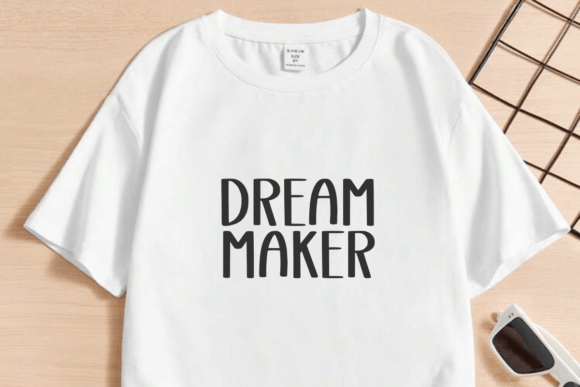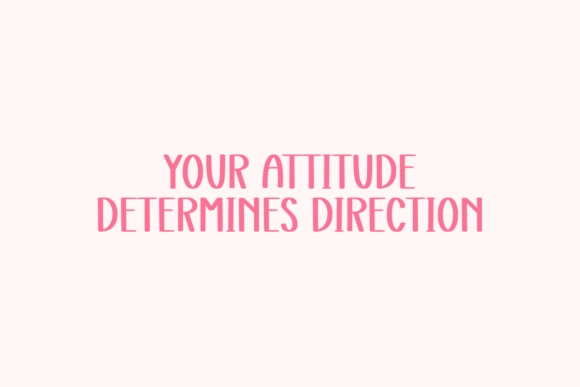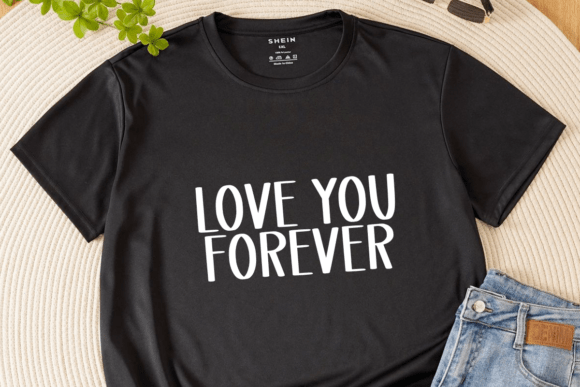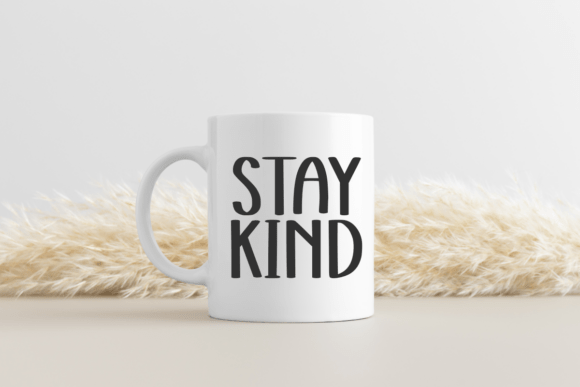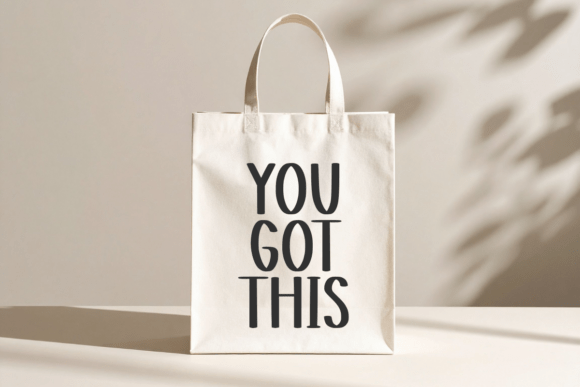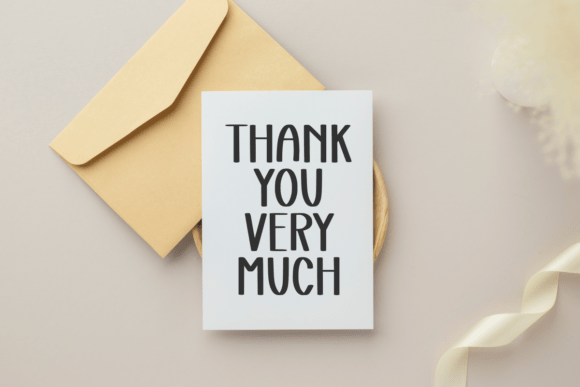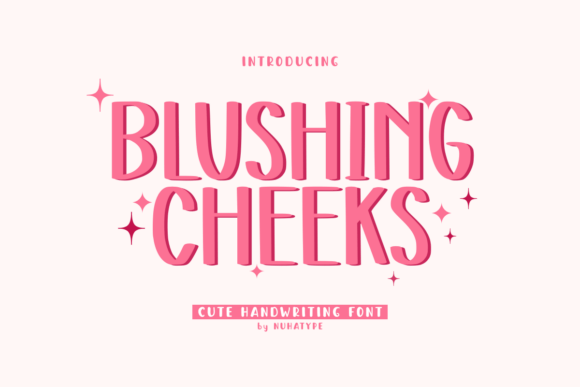
Introducing Blushing Cheeks Font: The Perfect Handwriting Font for Crafty Projects
Are you a crafter, designer, or DIY enthusiast looking for a font that adds a touch of warmth and personality to your projects? Look no further than Blushing Cheeks Font, a delightful handwriting font designed to bring a soft, friendly, and natural look to your creations. In this article, we’ll explore the features and benefits of Blushing Cheeks Font, and how it can elevate your craft projects, planners, stickers, kids’ worksheets, classroom printables, and DIY designs.
The Characteristics of Blushing Cheeks Font
Blushing Cheeks Font is a cute handwriting font that boasts simple strokes and smooth curves, making it easy to read and visually appealing. Its handcrafted feel is perfect for crafty projects that require a personal touch. The font’s soft and friendly appearance is ideal for designs that need to convey a sense of warmth and approachability.
Perfect for Crafting Moms and Designers
Blushing Cheeks Font is a dream come true for crafting moms and designers who love working with adorable handwritten styles. Its smooth curves and simple strokes make it easy to cut using popular cutting machines like Cricut and Silhouette. This font is perfect for creating a wide range of projects, from greeting cards and kids’ labels to coloring pages and worksheets.
Endless Project Ideas with Blushing Cheeks Font
The versatility of Blushing Cheeks Font is one of its most significant advantages. You can use it for a wide range of projects, including:
- Quotes and inspirational messages
- Kids’ labels and stickers
- Coloring pages and worksheets
- Bullet journals and planners
- Scrapbooks and photo albums
- Playful graphic projects and DIY designs
Why Choose Blushing Cheeks Font?
So, why should you choose Blushing Cheeks Font for your next project? Here are just a few reasons:
- Unique and eye-catching: Blushing Cheeks Font has a distinctive and adorable appearance that will make your projects stand out.
- Easy to read: The font’s simple strokes and smooth curves make it easy to read, even at small sizes.
- Versatile: Blushing Cheeks Font can be used for a wide range of projects, from kids’ worksheets to DIY designs.
- Crafting-friendly: The font is perfect for crafting moms and designers who love working with handwritten styles.
Tips for Using Blushing Cheeks Font
To get the most out of Blushing Cheeks Font, here are a few tips:
- Experiment with colors: Blushing Cheeks Font looks great in a variety of colors, from soft pastels to bold brights.
- Mix and match: Combine Blushing Cheeks Font with other fonts and graphics to create unique and eye-catching designs.
- Keep it simple: Don’t be afraid to keep your design simple and let the font be the star of the show.
Blushing Cheeks Font is a delightful handwriting font that is perfect for crafty projects, planners, stickers, kids’ worksheets, classroom printables, and DIY designs. Its soft, friendly, and natural look makes it a great choice for designers and crafters who want to add a touch of warmth and personality to their creations. With its simple strokes and smooth curves, Blushing Cheeks Font is easy to read and versatile, making it a great addition to any design project.